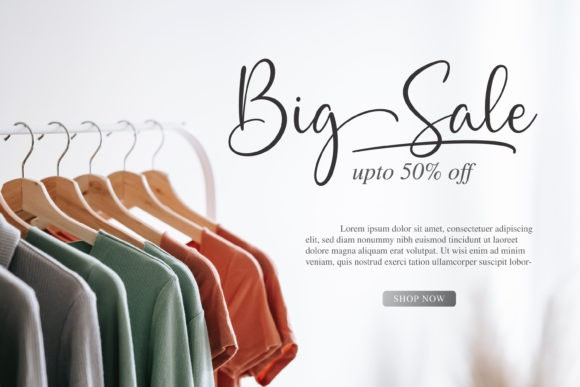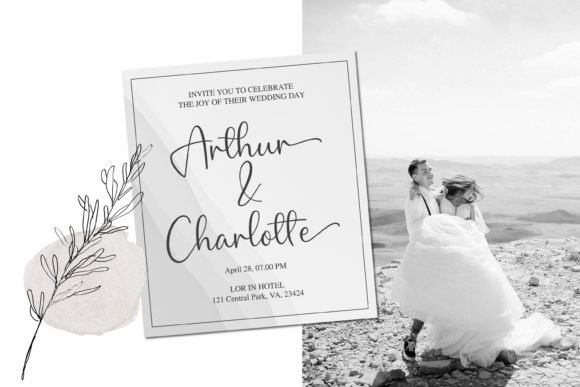
Hugey Matteo Brush Font
Hugey Matteo is a textured handbrush font. Get inspired by its unique and beautiful style and add it to your favorite designs!